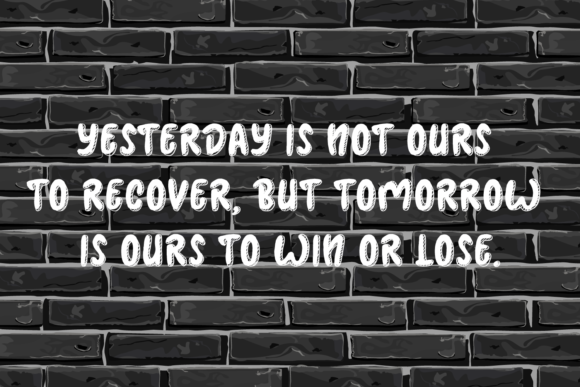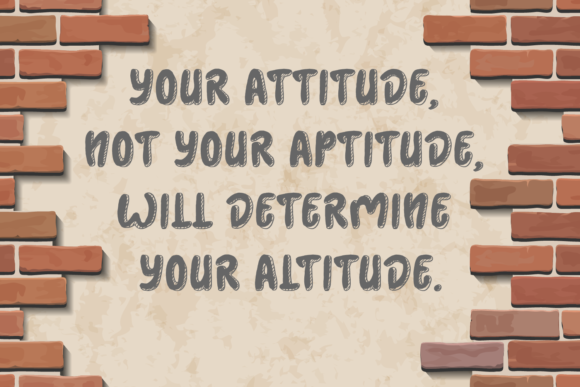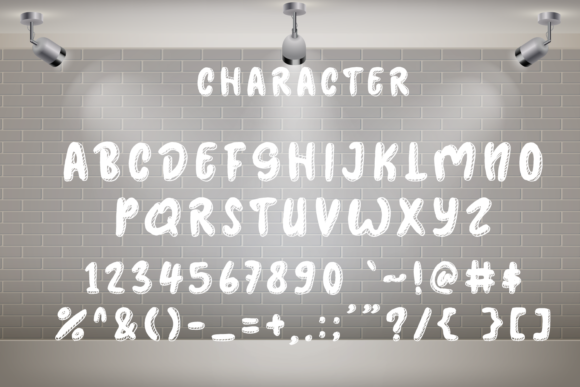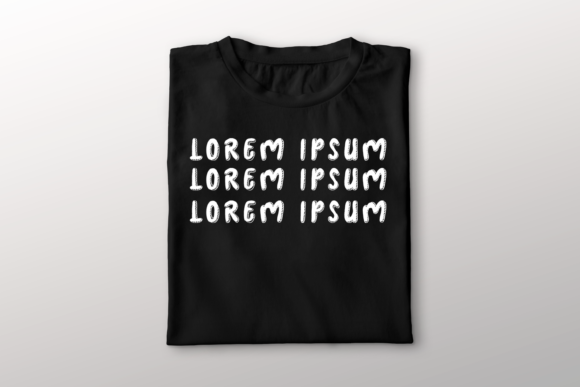
Introducing Bright Wall Font: The Ultimate Display Font for Bold and Whimsical Designs
Are you tired of using the same old fonts in your designs? Do you want to add a touch of personality and whimsy to your creations? Look no further than Bright Wall Font, a cool, bold, and playful display font that’s sure to make your designs come alive!
What is Bright Wall Font?
Bright Wall Font is a chunky lettered typeface that’s perfect for designers and crafters who want to add a dash of fun and personality to their work. This font is designed to make a statement, with bold and rounded letters that are sure to grab attention. Whether you’re creating a logo, a poster, or a social media graphic, Bright Wall Font is the perfect choice.
Key Features of Bright Wall Font
- Bold and Chunky Letters: Bright Wall Font features bold and chunky letters that are perfect for creating eye-catching designs.
- Whimsical Design: This font has a playful and whimsical design that’s sure to add a touch of personality to your creations.
- Easy to Read: Despite its bold design, Bright Wall Font is easy to read, making it perfect for use in a variety of design projects.
- Versatile: This font is versatile and can be used in a variety of design projects, from logos and posters to social media graphics and more.
How to Use Bright Wall Font in Your Designs
Bright Wall Font is easy to use and can be incorporated into your designs in a variety of ways. Here are a few ideas to get you started:
- Logos: Use Bright Wall Font to create a bold and eye-catching logo that’s sure to grab attention.
- Posters: Add a touch of whimsy to your posters with Bright Wall Font, perfect for advertising events, promotions, and more.
- Social Media Graphics: Use Bright Wall Font to create eye-catching social media graphics that are sure to stand out in a crowded feed.
- Crafting Projects: Bright Wall Font is also perfect for use in crafting projects, such as scrapbooking, card making, and more.
Why Choose Bright Wall Font?
So why choose Bright Wall Font for your design projects? Here are just a few reasons:
- Unique Design: Bright Wall Font has a unique and playful design that’s sure to set your designs apart from the crowd.
- Easy to Use: This font is easy to use and can be incorporated into your designs in just a few clicks.
- Versatile: Bright Wall Font is versatile and can be used in a variety of design projects, making it a great addition to your font library.
If you’re looking for a font that’s bold, playful, and whimsical, look no further than Bright Wall Font. This chunky lettered typeface is perfect for designers and crafters who want to add a touch of personality to their creations. With its easy-to-use design and versatile applications, Bright Wall Font is sure to become a staple in your font library.